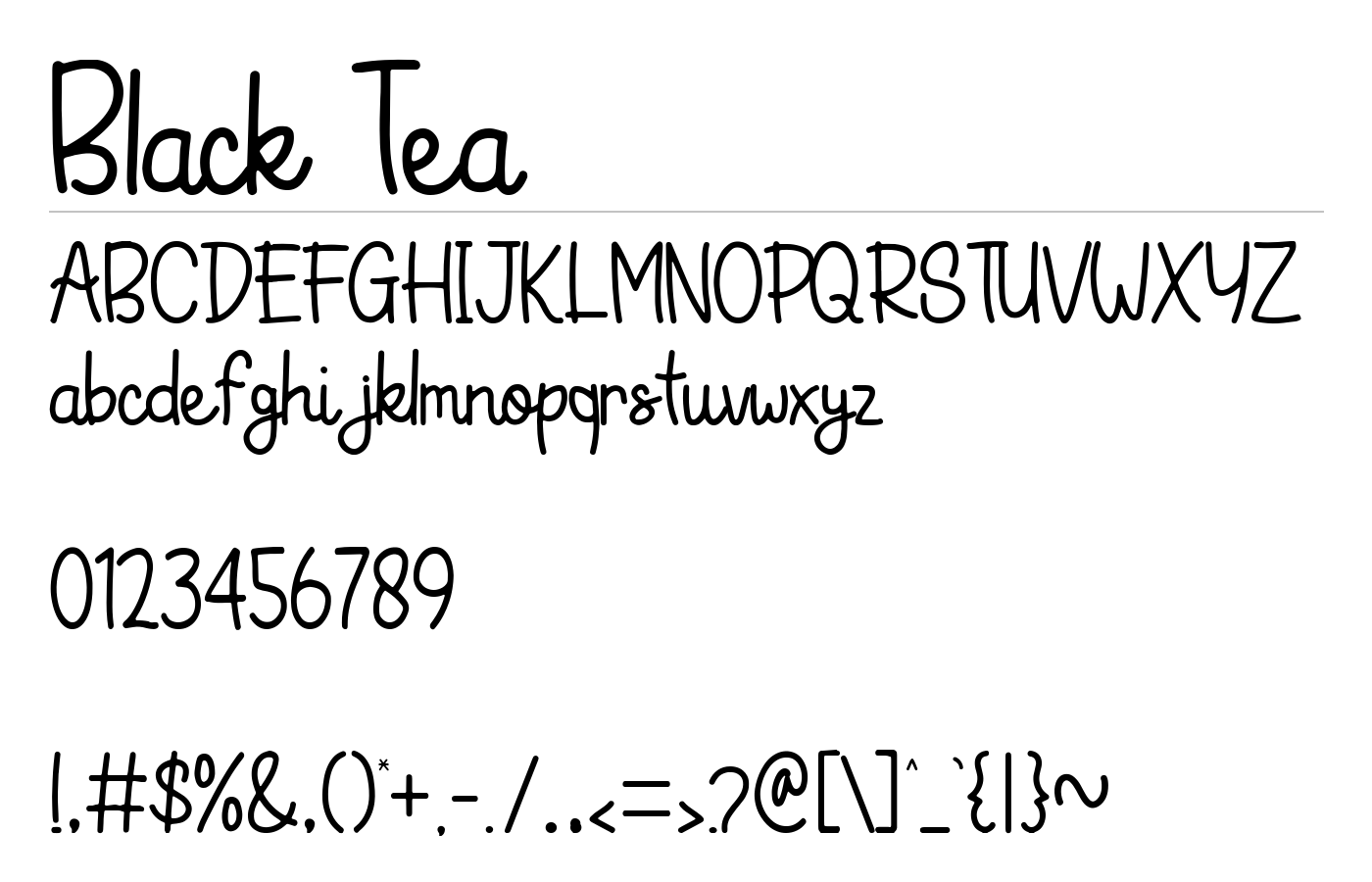
Black Tea is a playful, handwritten sans serif font characterized by its casual, friendly strokes and moderate x-height that enhance readability. With its light weight, rounded edges, and slightly irregular shapes, it gives an informal and approachable feel, making it perfect for creative projects, children’s books, and branding that seeks warmth and personality. This font works well in headlines, invitations, and packaging where a lively, personal touch is desired.
Black Tea Font
About Black Tea Font